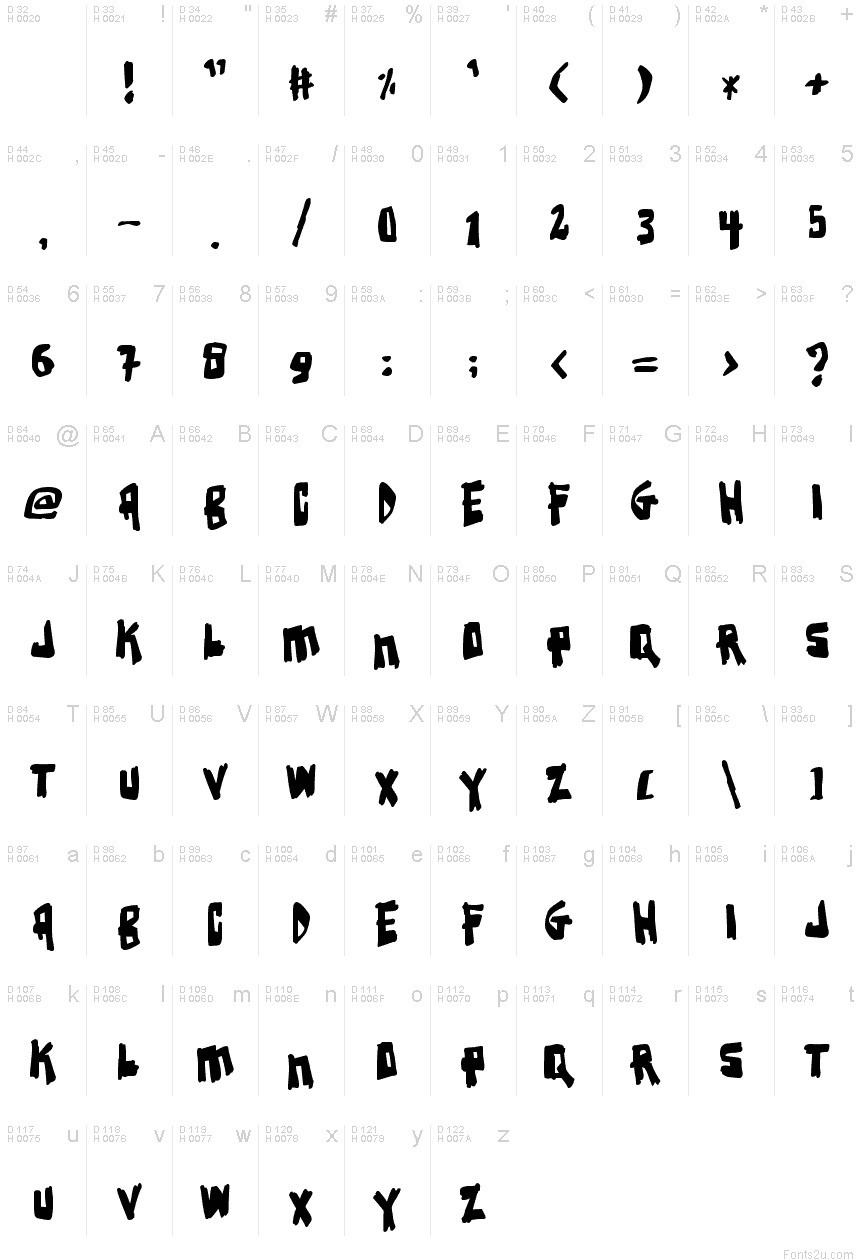
Earthquake
Earthquake font by Jakob Fischer at PizzaDude is a free distorted display typeface that looks like the ground is shaking under your text. The chunky, inky strokes stagger and tilt, with uneven heights that feel wild but still readable, like graffiti painted during an aftershock. It brings a raw, hand-drawn energy that instantly turns calm layouts into chaos.
Using Earthquake, you can punch up horror posters, Halloween invites, monster-themed party graphics, game titles, comics, album covers, and bold YouTube thumbnails. This free font shines at large sizes; pair it with a clean, narrow sans serif for body copy to keep the overall design grounded and legible.